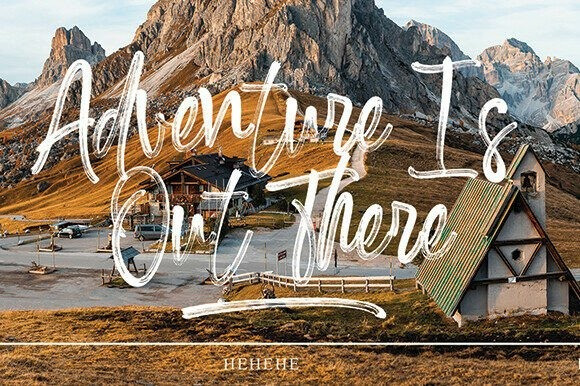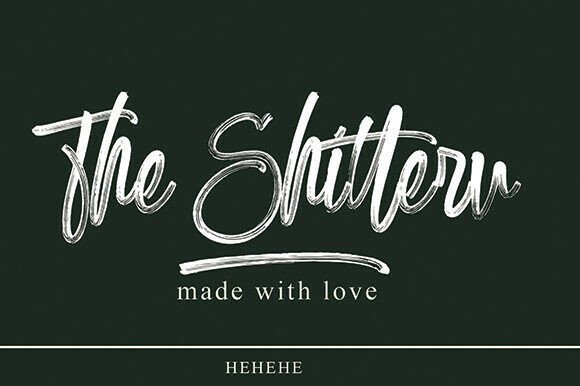
The Shitteru Script Font
The Shitteru Script Font is a contemporary script font that features a refined, hand-brushed aesthetic. It is characterized by high-contrast strokes that blend smooth curves with sharp, tapering terminals, giving the letterforms a rhythmic and elegant flow.
The font includes a distinctive horizontal swash element that can be used to underscore text for added emphasis and style. This typeface is an excellent choice for personalized branding, stylish event invitations, fashion lookbooks, and luxury photography watermarks.